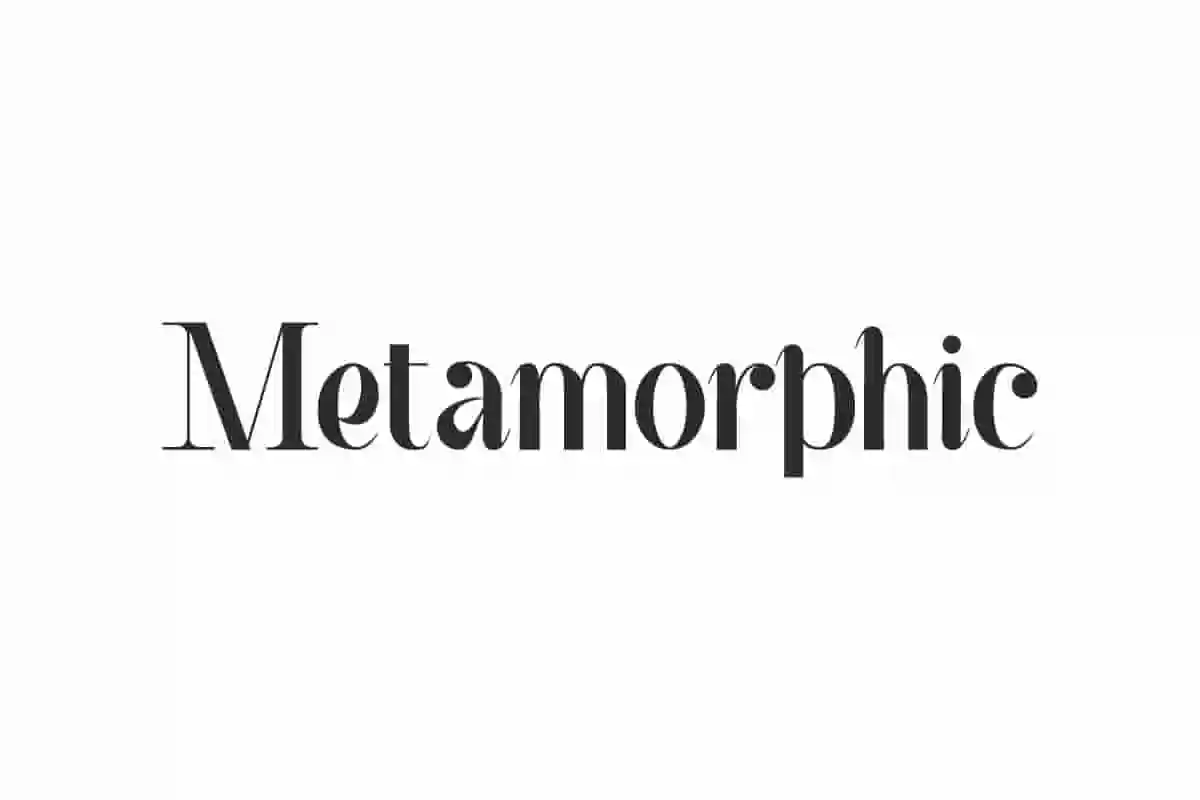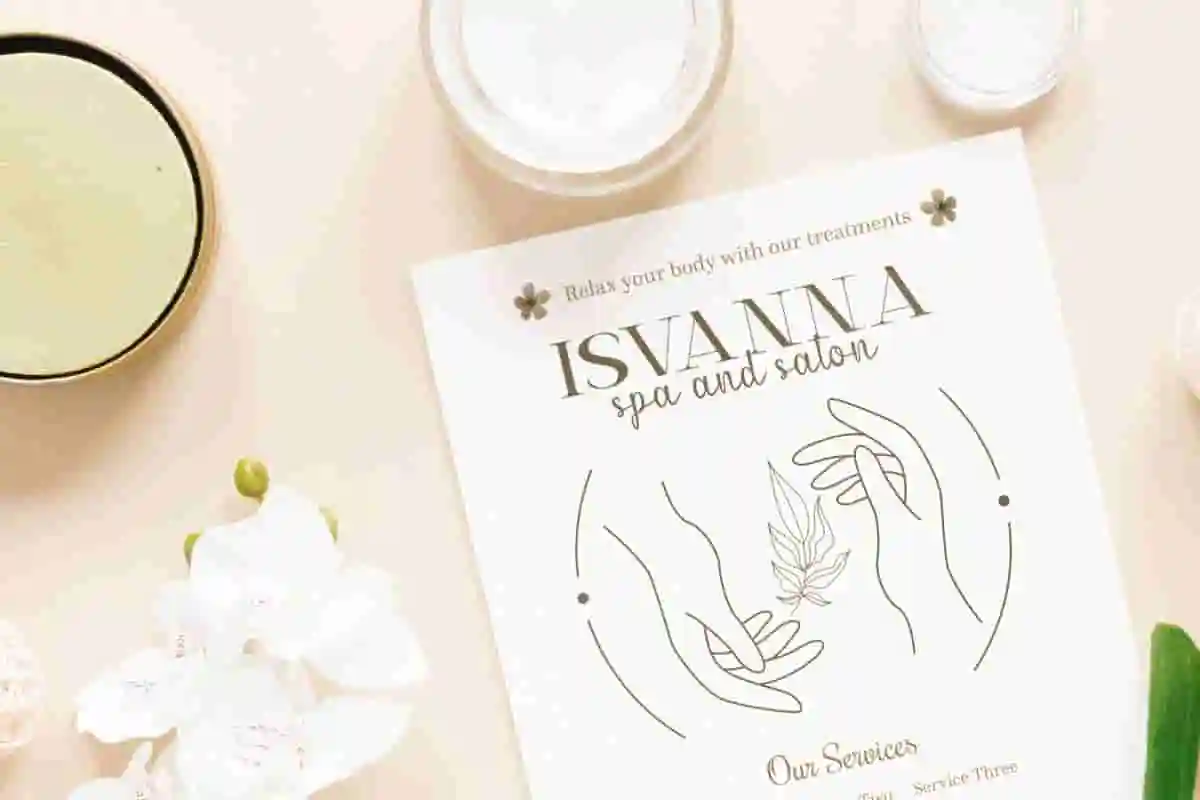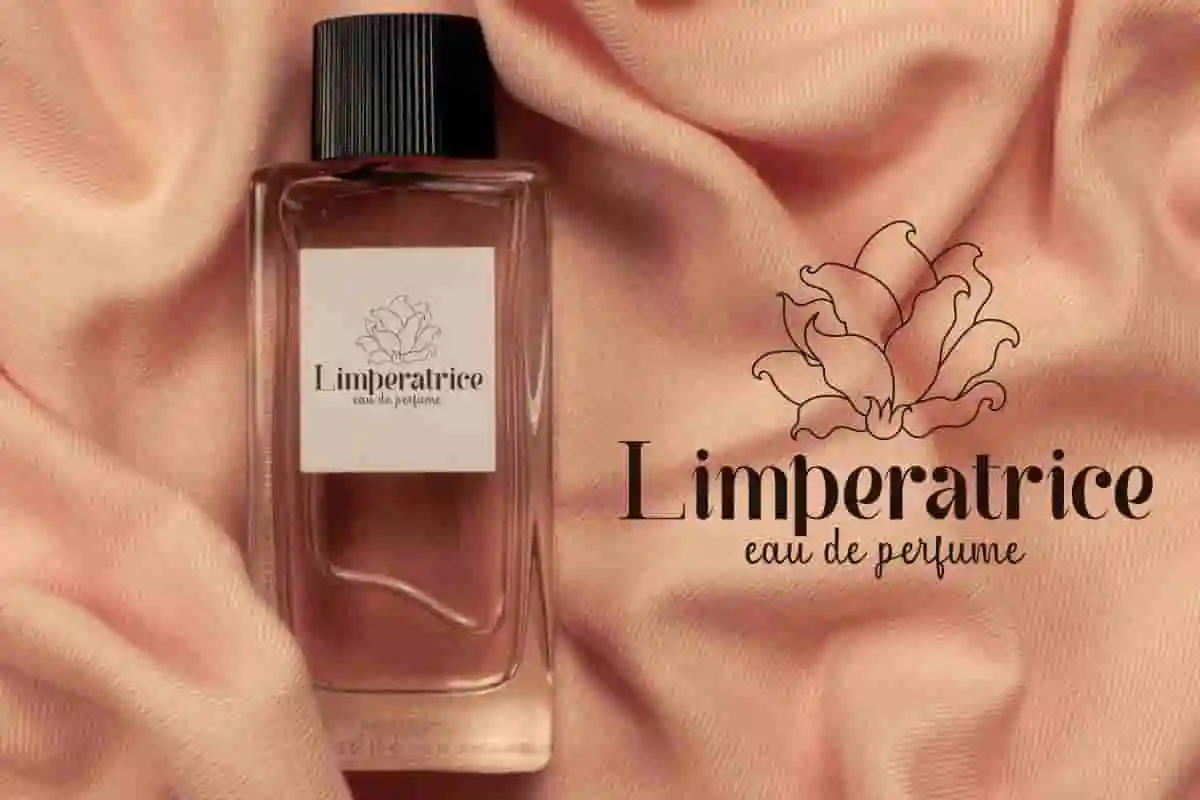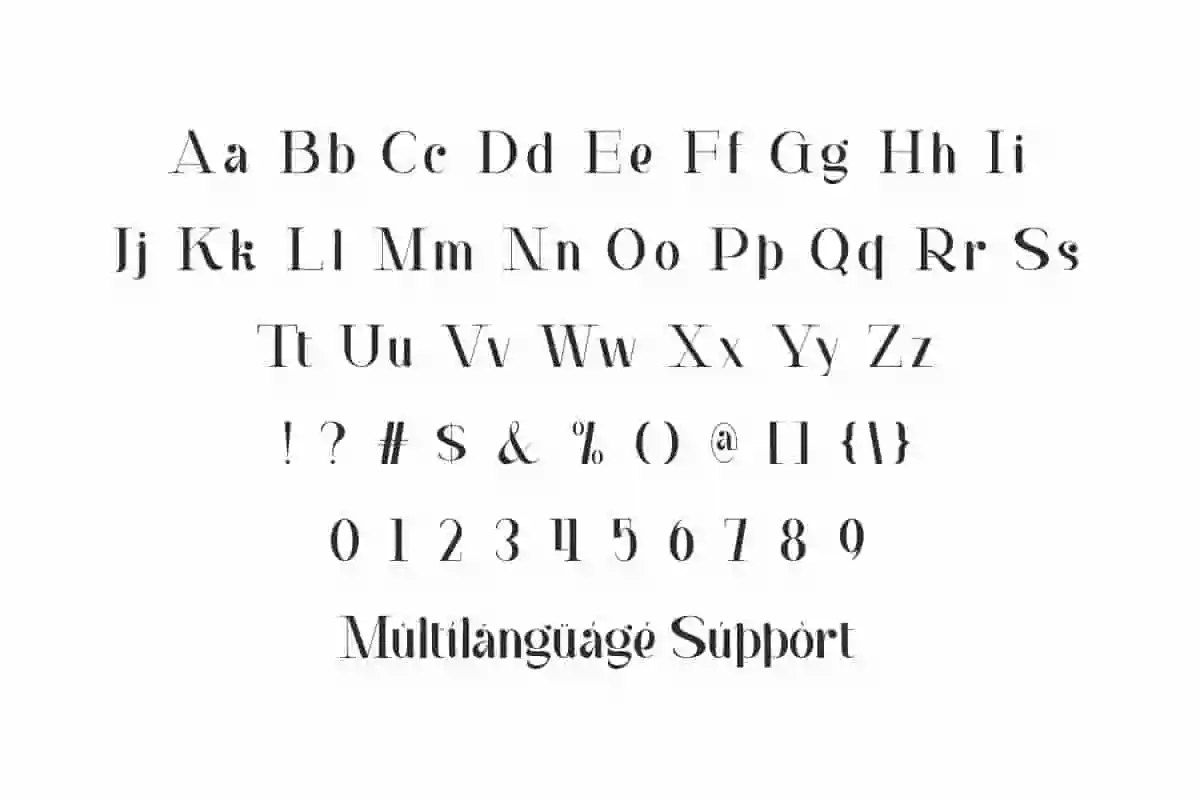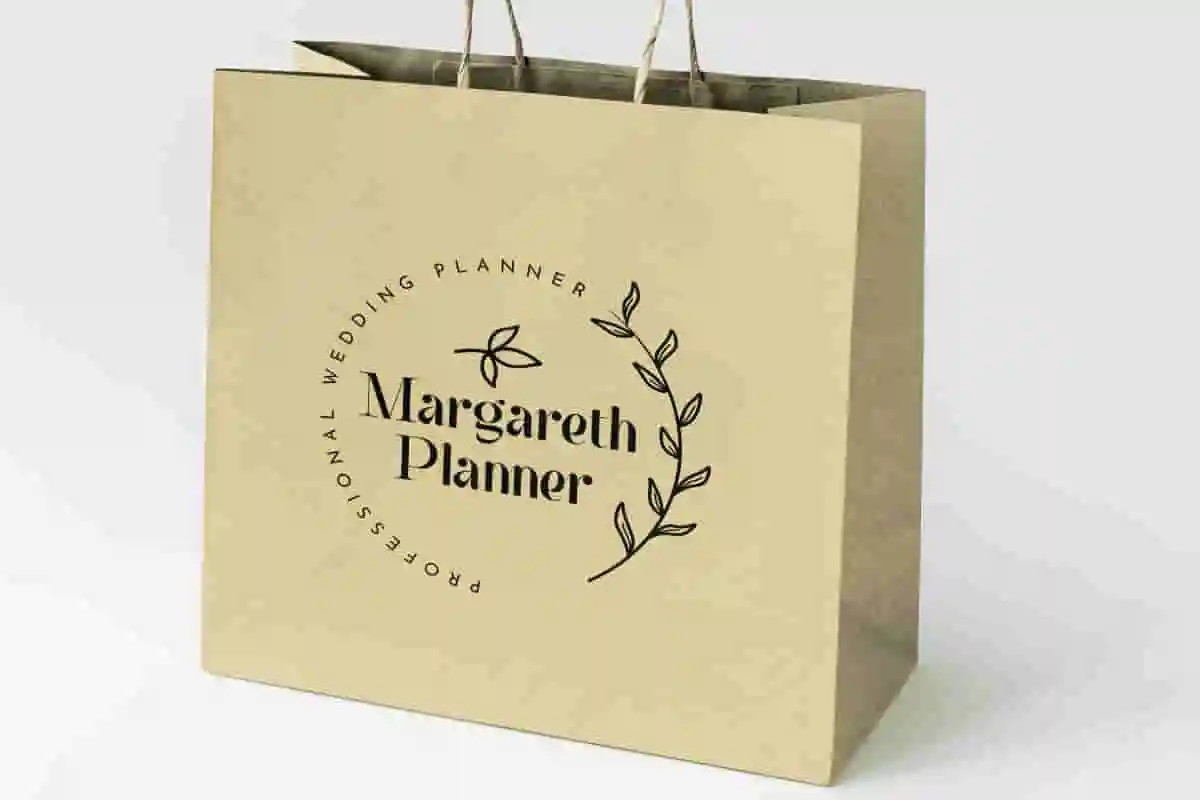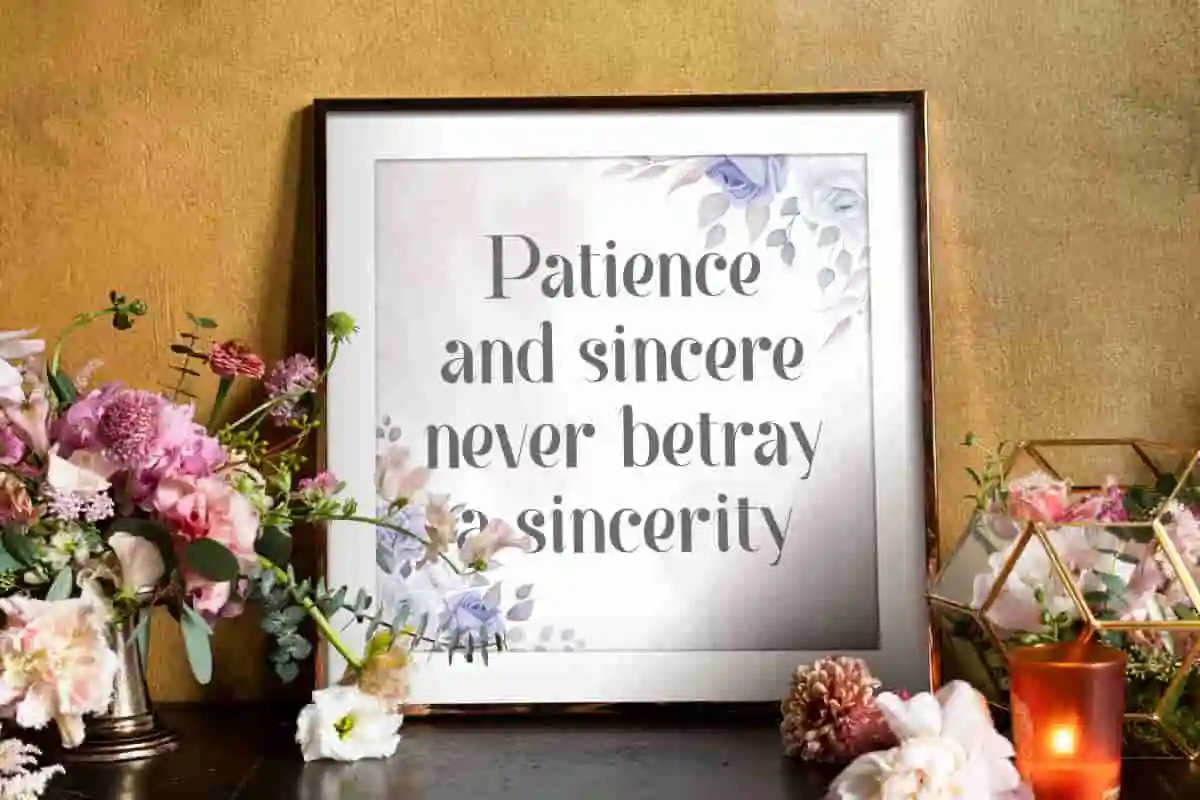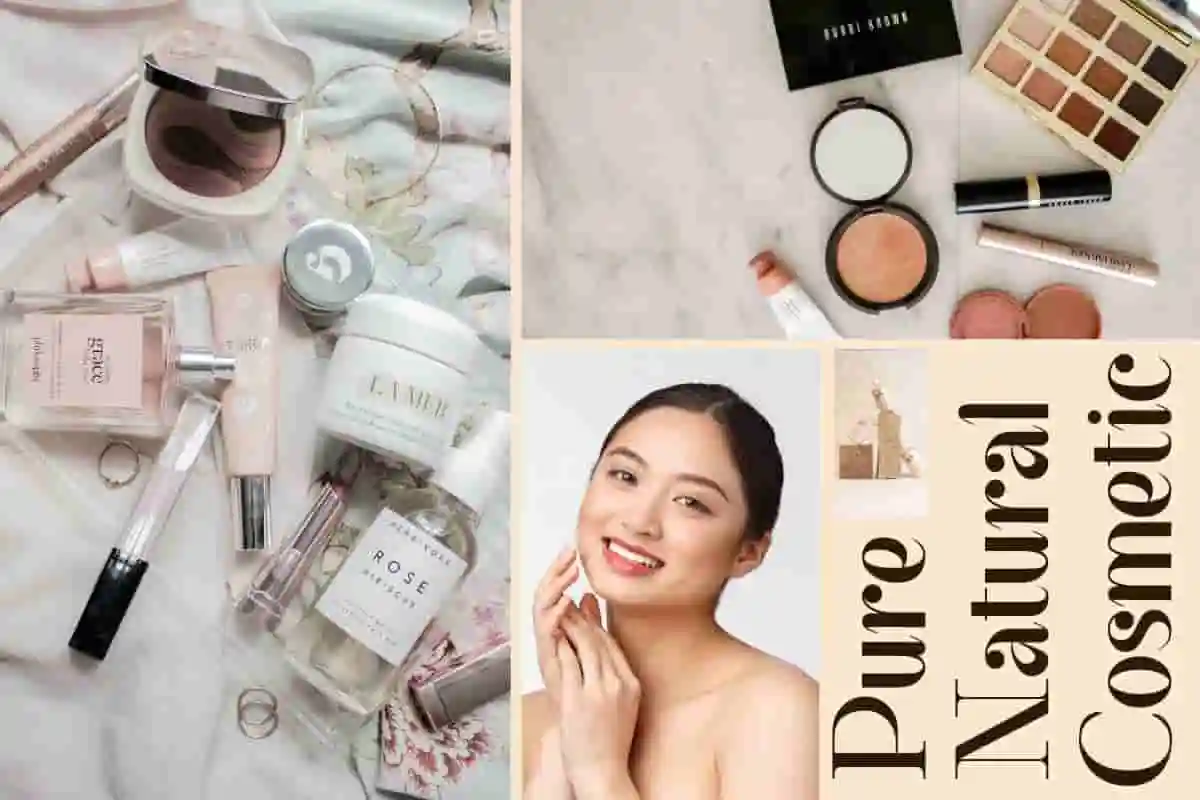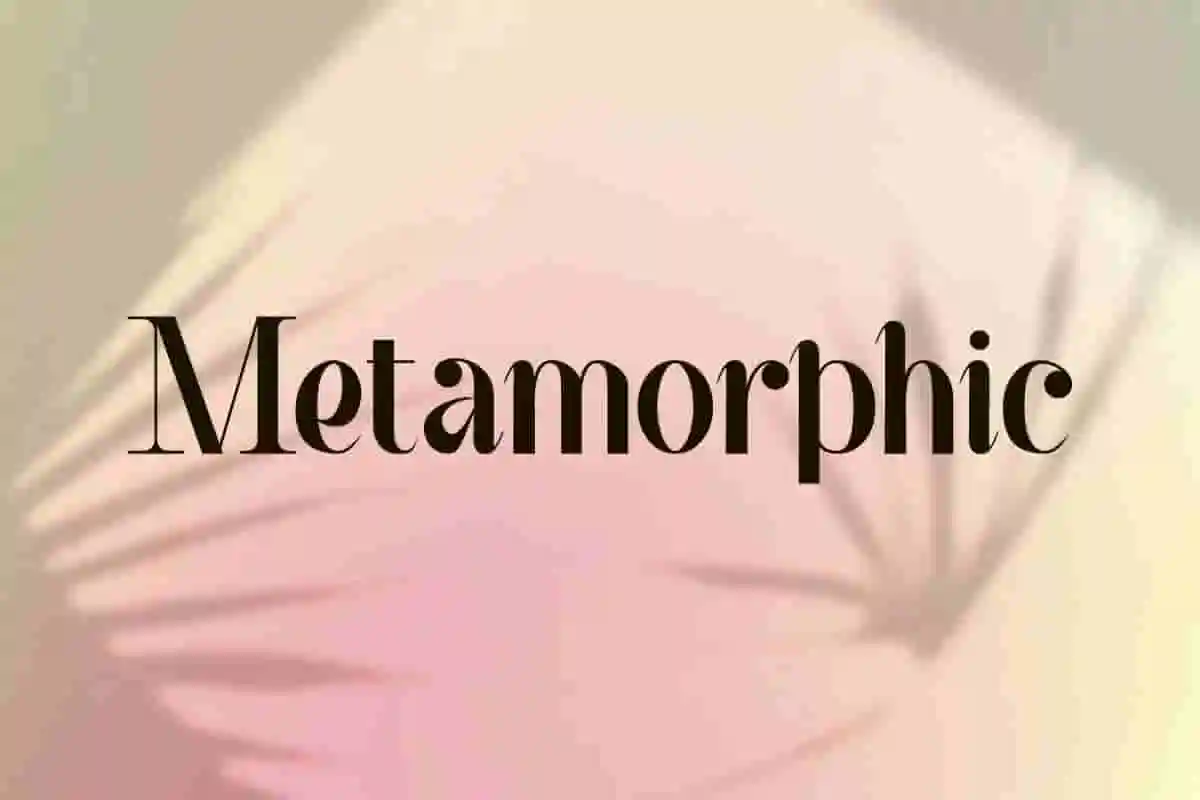
Metamorphic Modern Font
Metamorphic Font is a memorable modern display font with a smooth serif style. It will be versatile to complement you in every way when creating.
Metamorphic Font is a memorable modern display font with a smooth serif style. It will create an awesome touch to your business, such as architect, author, boutique, cosmetic, fashion designer, florist, interior design, jewelry, perfume maker, photography, printing, publishing, real estate, restaurant, retail, skincare, social media content, spa salon, wedding, writer, and many more.
Metamorphic Font includes full set of Uppercase and Lowercase Basic Characters, Number, Punctuation, and Symbol. It is here to give a graceful look to your design, such as apps, billboard, blogs, brand logo, brochure, cover, headline, invitation, label, pamphlet, packaging design, quote, screen print, signage, stationery, sticker, title, watermark, website, and much more.